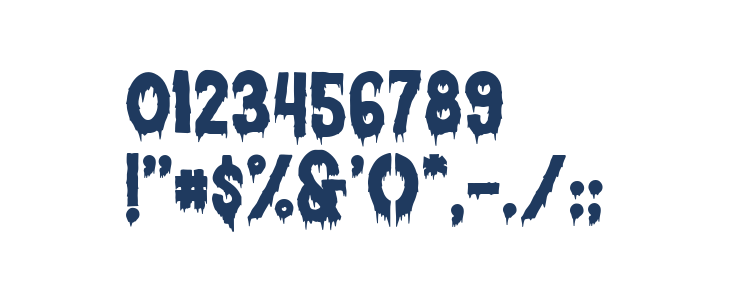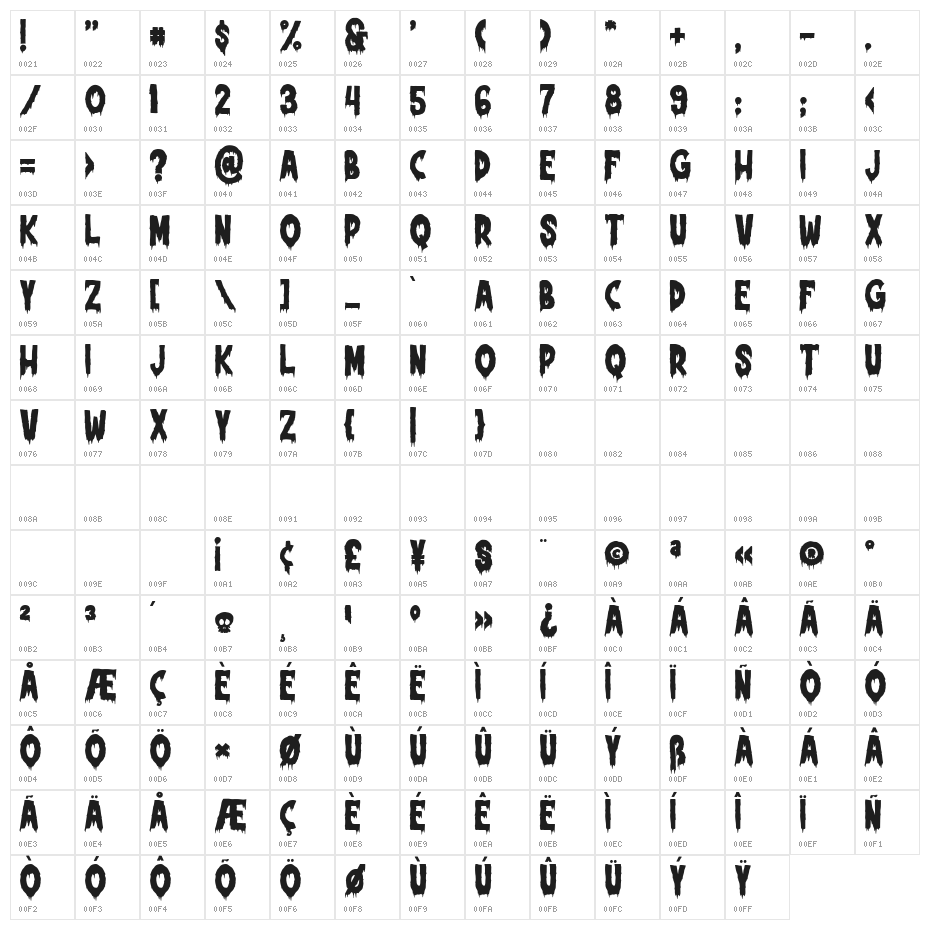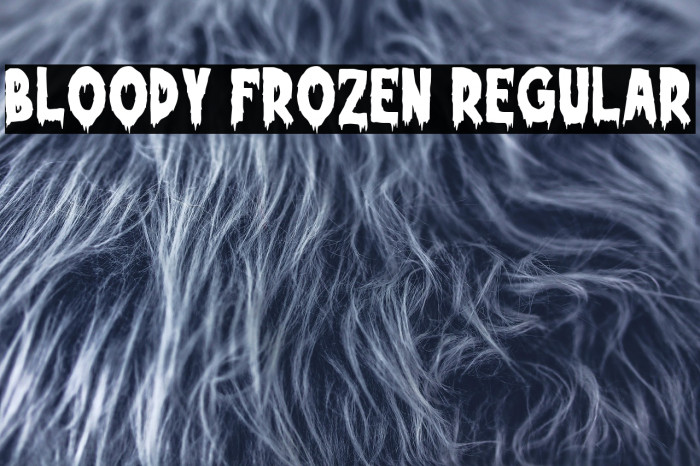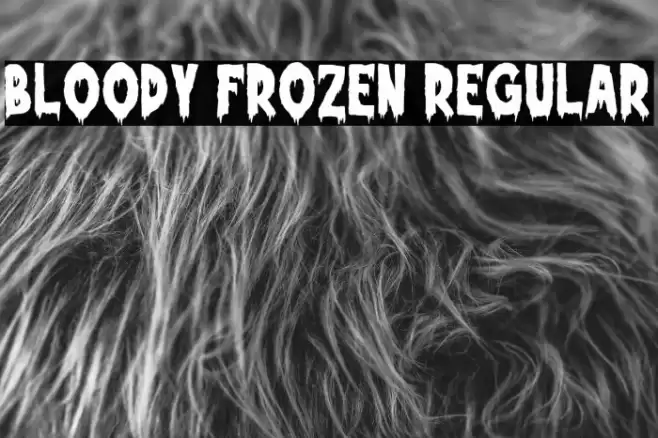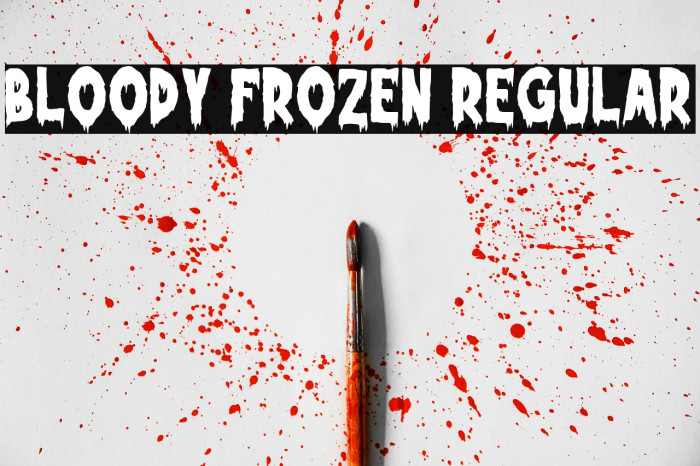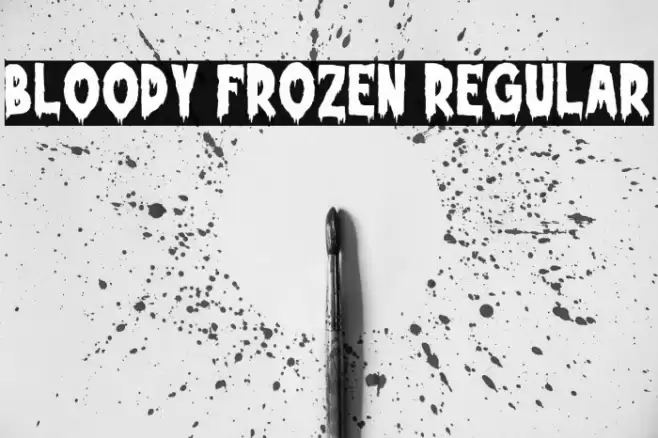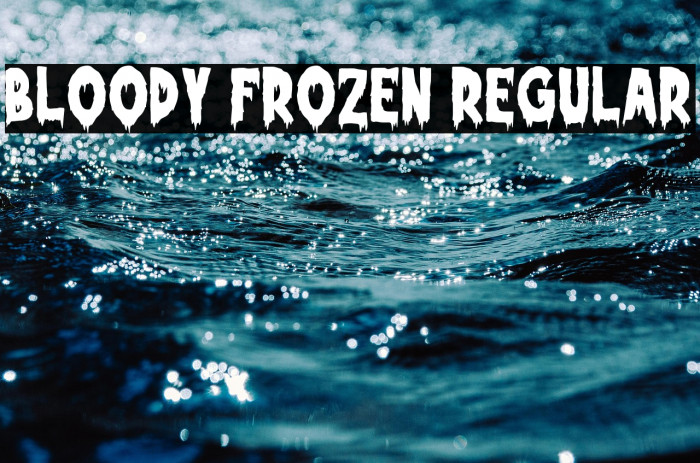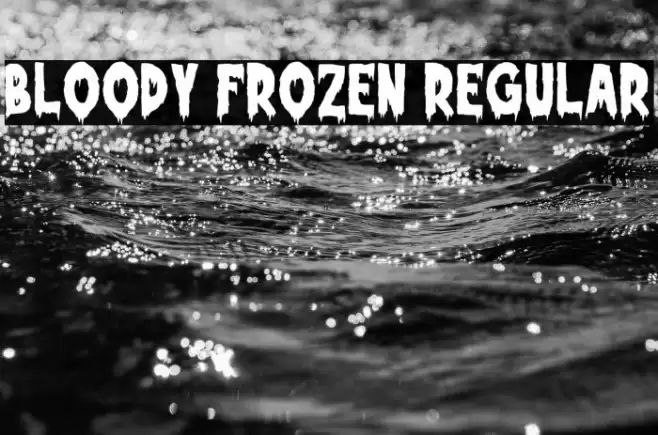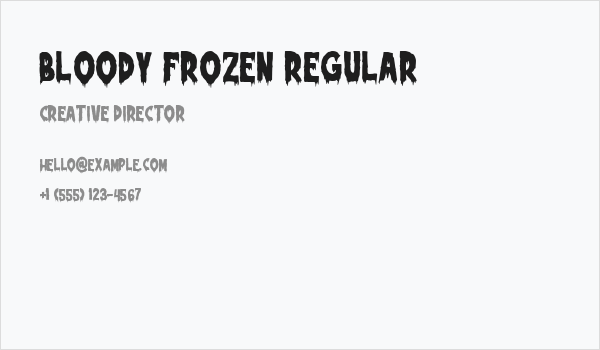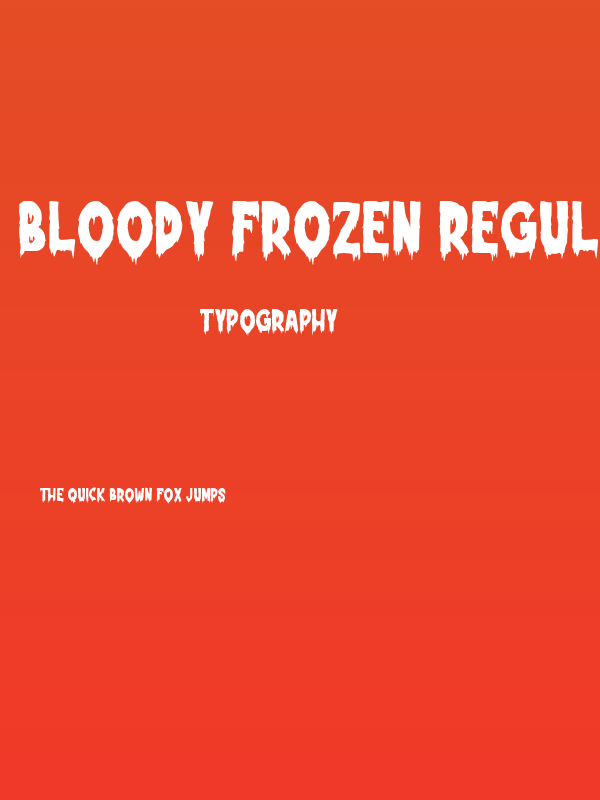
Bloody Frozen Regular Font
Bloody Frozen Regular Description
This font features a bold and dramatic style with a dripping effect reminiscent of melting ice or blood. The characters are thick and heavy, with irregular edges that give a sense of movement and fluidity. The uppercase and lowercase letters maintain a consistent design, emphasizing the theme of horror or coldness. The numbers and special characters follow the same aesthetic, making the font cohesive and visually striking. Its unique appearance makes it ideal for projects that require a chilling or eerie atmosphere.
| Use Case | Headlines, Posters, Logos |
| Proposed Projects | Perfect for Halloween-themed designs, horror movie posters, chilling book covers, or any project needing a dramatic and eerie touch. |